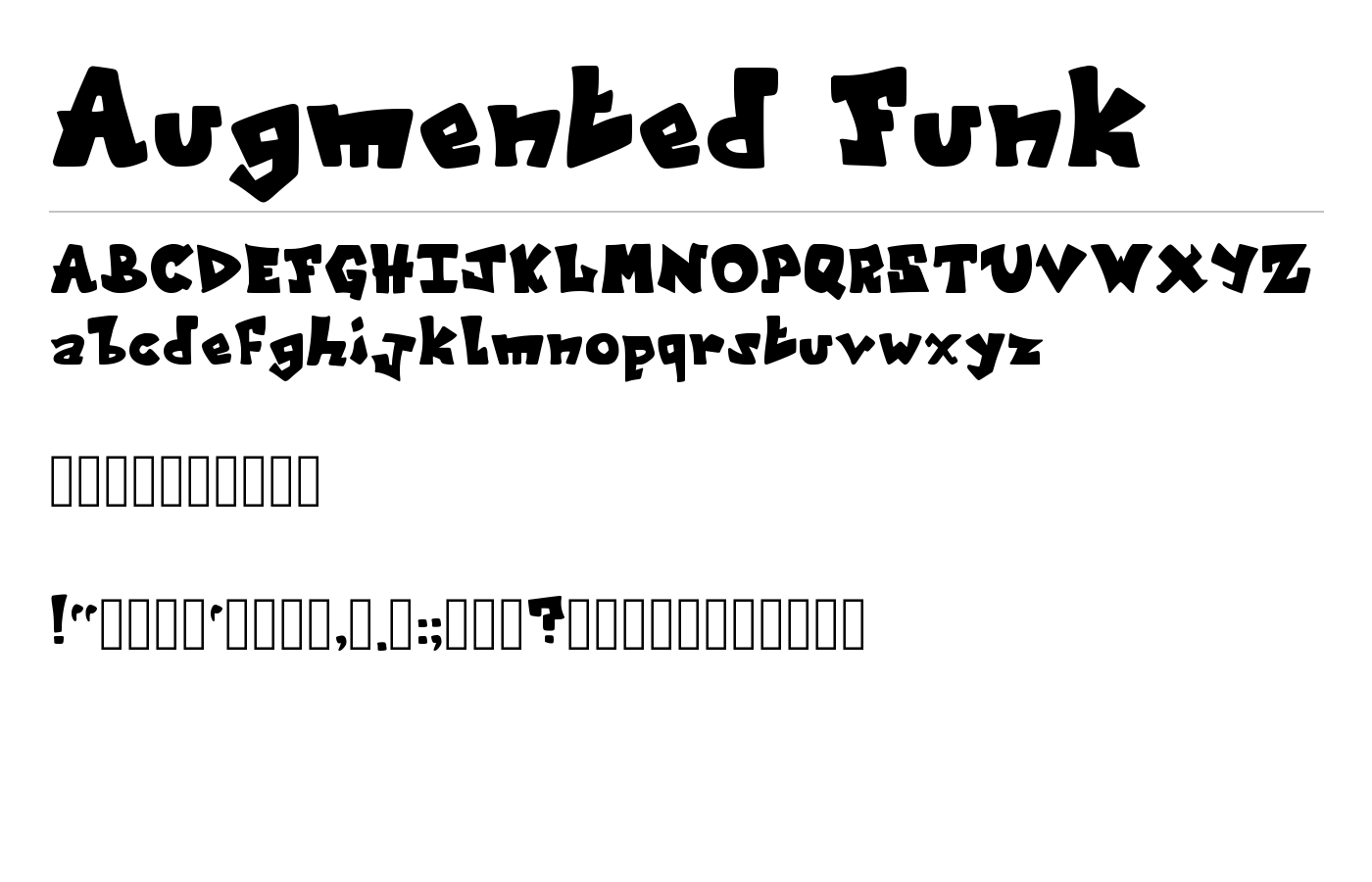
Augmented Funk is a playful and bold sans-serif font with an irregular, chunky style that gives it a fun, energetic personality. Its uneven letter shapes and exaggerated forms make it perfect for creative and informal designs, such as posters, logos, or branding that aims to capture a quirky, youthful vibe. This font works best when used in headlines or short text where its distinctive character can shine.
Augmented Funk Font
About Augmented Funk Font